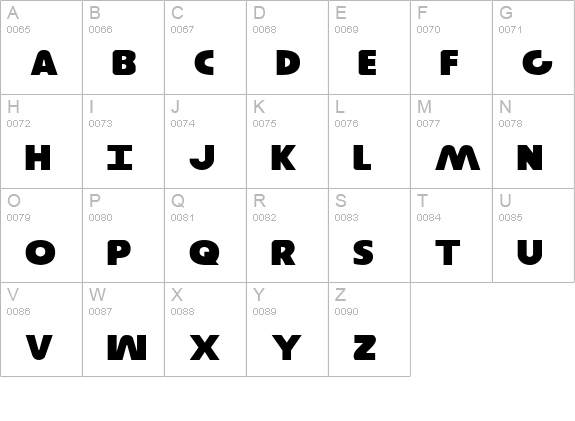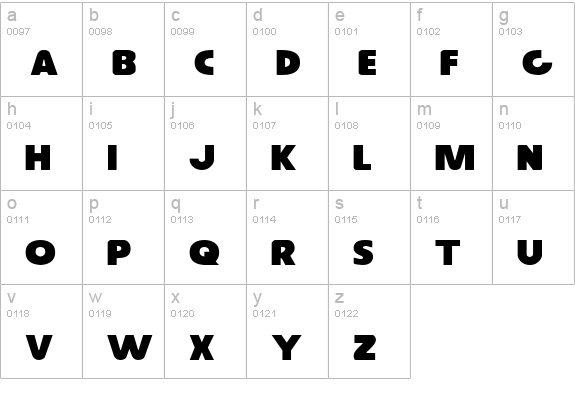
Governor Expanded Font Details
Governor Expanded is a distinctive, extended-width variant in the Governor typeface family \xE2\x80\x94 well suited to design and typography projects.
Governor Expanded font is a striking and elegant typeface that exudes sophistication and professionalism. With its clean lines and modern aesthetic, this font is perfect for a wide range of design projects, from branding to editorial design. The elongated letterforms of Governor Expanded lend a sense of luxury and refinement to any text, making it ideal for creating a polished and sophisticated look. What's even better is that Governor Expanded font is available for free download at FontsMarket.com. This means you can easily incorporate this beautiful font into your projects without any cost. Don't miss out on the opportunity to enhance your designs with the timeless elegance of Governor Expanded font, now freely accessible for all your creative needs.